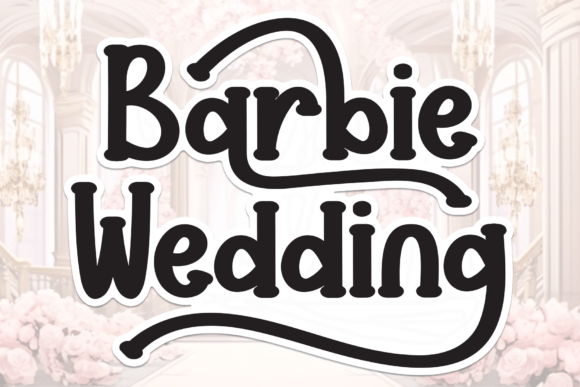
Barbie Wedding Font: A Handcrafted Touch of Timeless Elegance
In the realm of typography, there lies a font that exudes charm and sophistication, captivating hearts with its enchanting curves and graceful strokes. Its name: Barbie Wedding Font - a script font that embodies the essence of romance and timeless allure.
Step into a world of elegance and creativity with Barbie Wedding Font, where every letter is a delicate work of art. Each character dances across the page with a unique and beautiful touch, adding a touch of personality and charm to your designs. Whether you're crafting eye-catching logos, designing captivating branding, or creating heartfelt quotes, Barbie Wedding Font is the perfect choice for adding an unforgettable touch to your work.
Indulge in the allure of Barbie Wedding Font and let your imagination flourish. Its versatility knows no bounds, making it the ultimate choice for a wide range of projects. From wedding invitations that radiate romance to social media posts that sparkle with personality, Barbie Wedding Font adds a touch of magic to every creation. Elevate your designs with this exquisite font and watch as your words come alive with elegance and charm.
As you embrace Barbie Wedding Font, you'll discover a font that is not merely a collection of characters, but a true companion on your creative journey. Its graceful strokes and flowing lines will inspire you, igniting your imagination and allowing your designs to soar to new heights.